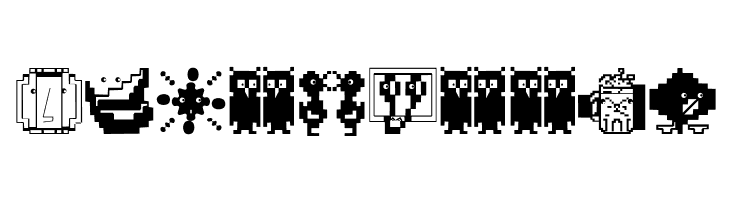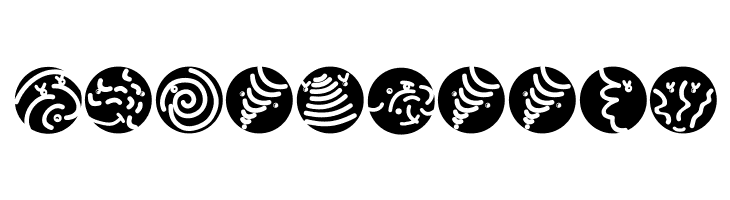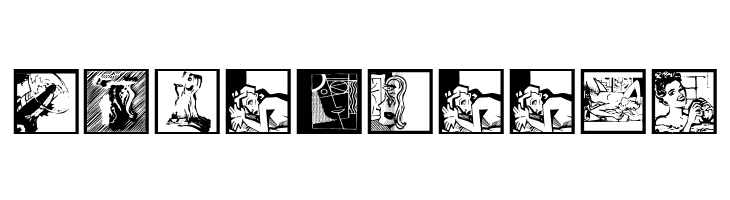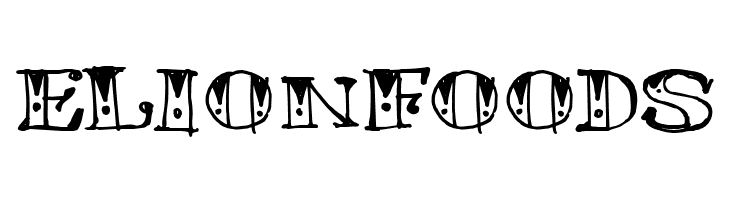
• ROSE TATTOO
A bold, decorative font with intricate tattoo-inspired detailing.
• RosePie
• RosettaCalligraphiaOne
Abstract, circular symbol font with high-contrast decorative motifs.
• RosettaMutanta
Intricate, abstract symbols with a futuristic and dynamic design.
• Rotodesign Dingbats
• Rough linen
( Fonts by Gyom Seguin - last-soundtrack.daportfolio.com )
A bold, distressed font with a rugged, grunge style.
• RoundBats
Pixel-art dingbat font with playful, retro icons.
• RoundFacesTwo
Whimsical, face-themed decorative font with abstract circular glyphs.
• RoundPieces-06
Patterned circular glyphs with abstract and geometric designs.
• RoylichBats
A decorative font featuring comic-style illustrations within each character.